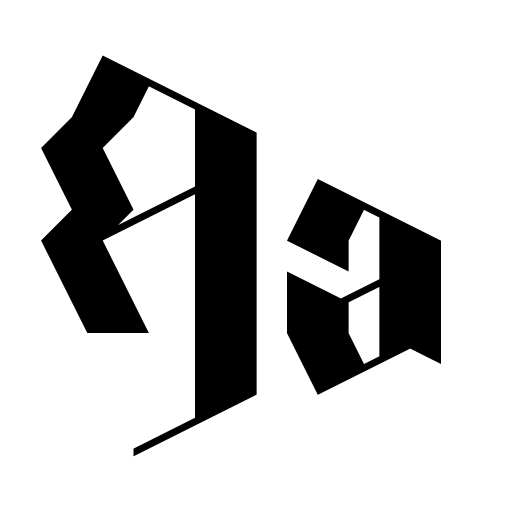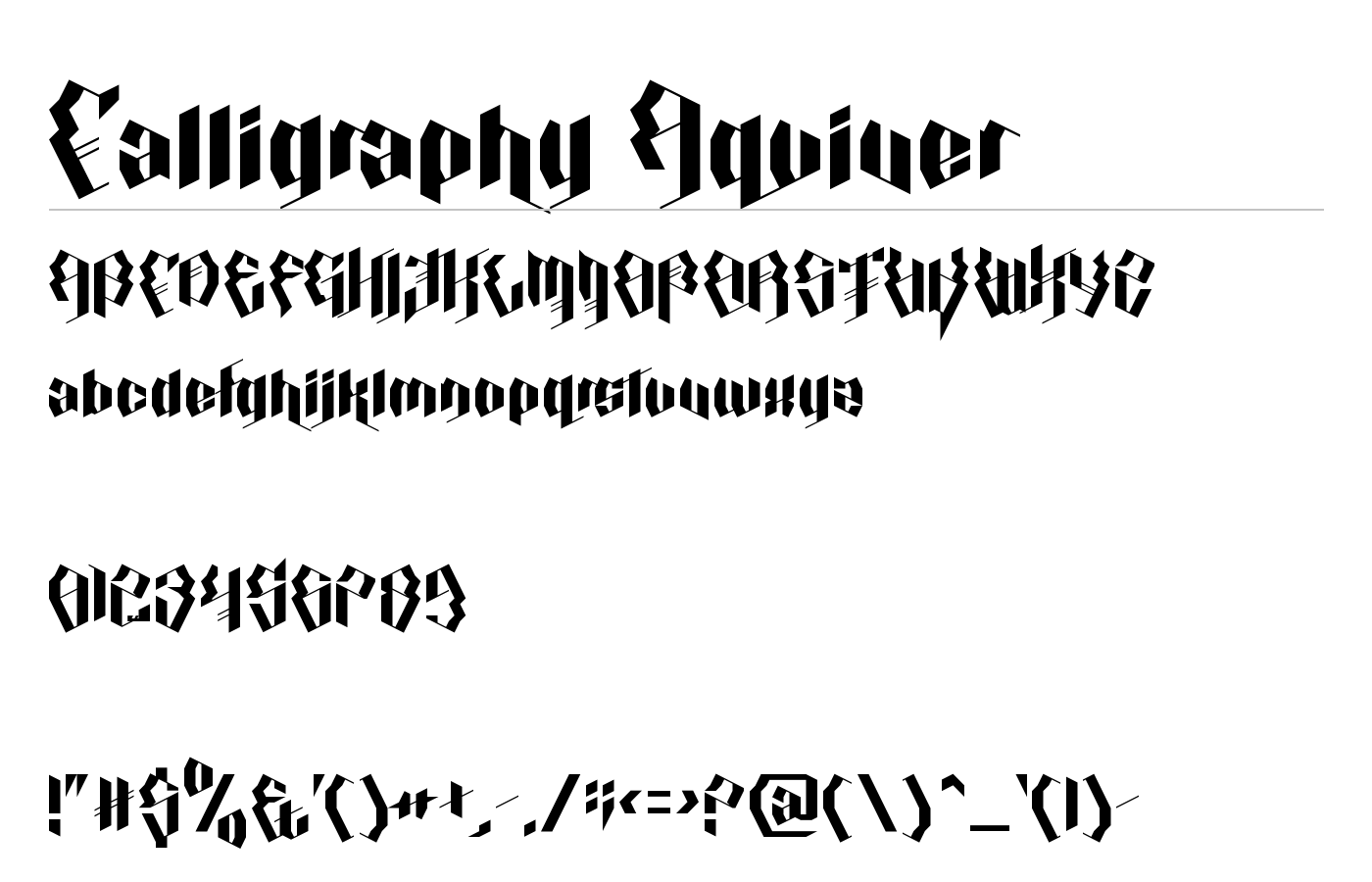
Calligraphy Aquiver is a bold, blackletter-style font with strong, angular strokes that create a dramatic and historic feel. Its sharp geometric shapes and heavy weight make it ideal for eye-catching headlines, logos, or designs seeking a gothic or medieval vibe. This font works best in display settings where its unique, intricate letterforms can stand out and convey a sense of tradition with a modern edge.
Calligraphy Aquiver Font
About Calligraphy Aquiver Font
| Font family | Calligraphy Aquiver Font |
| Designer | Andrew McCluskey |